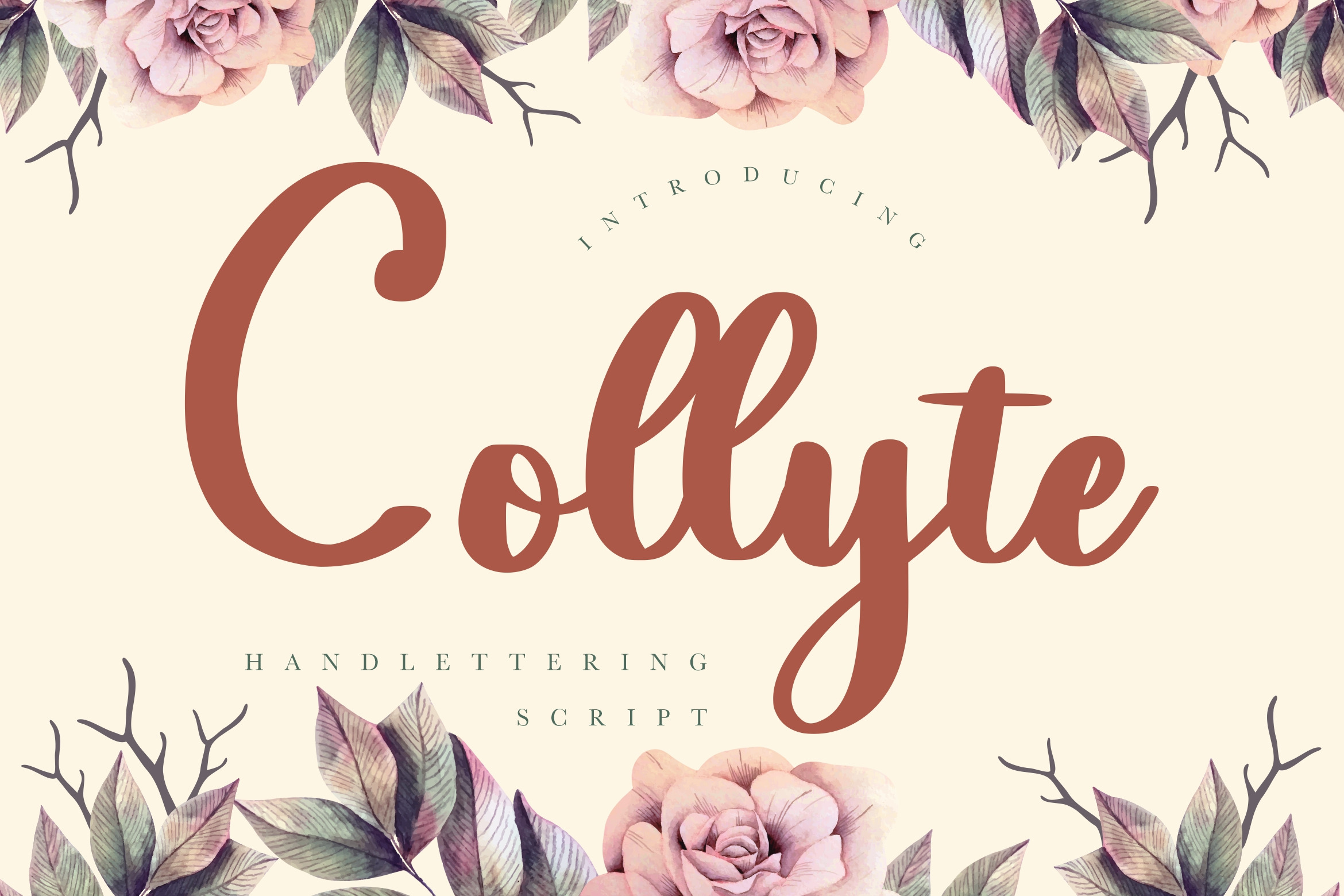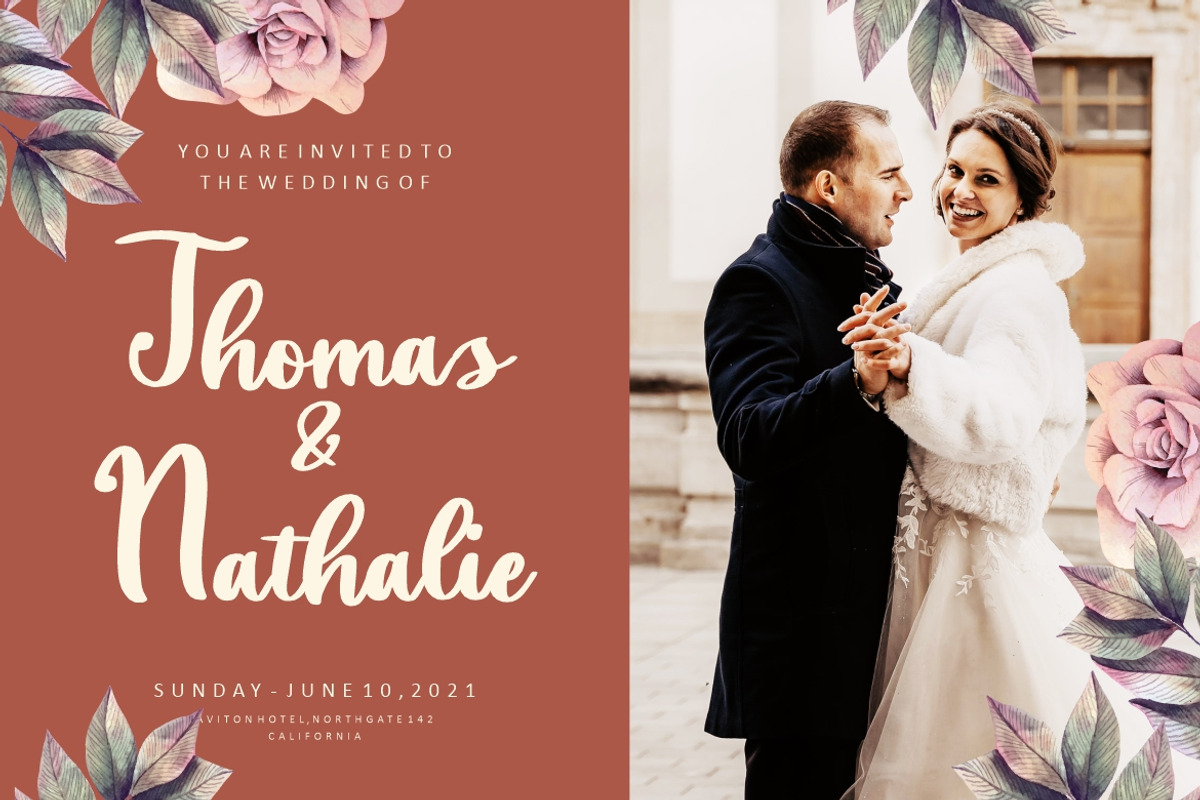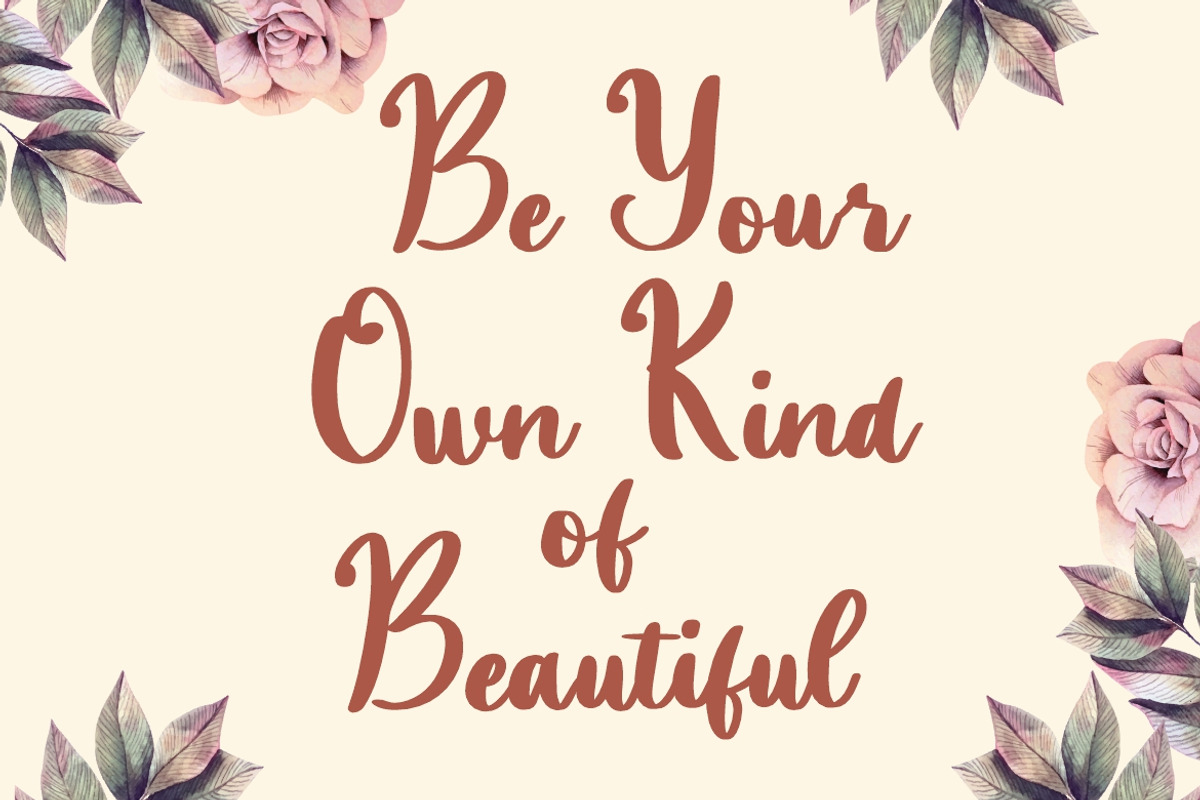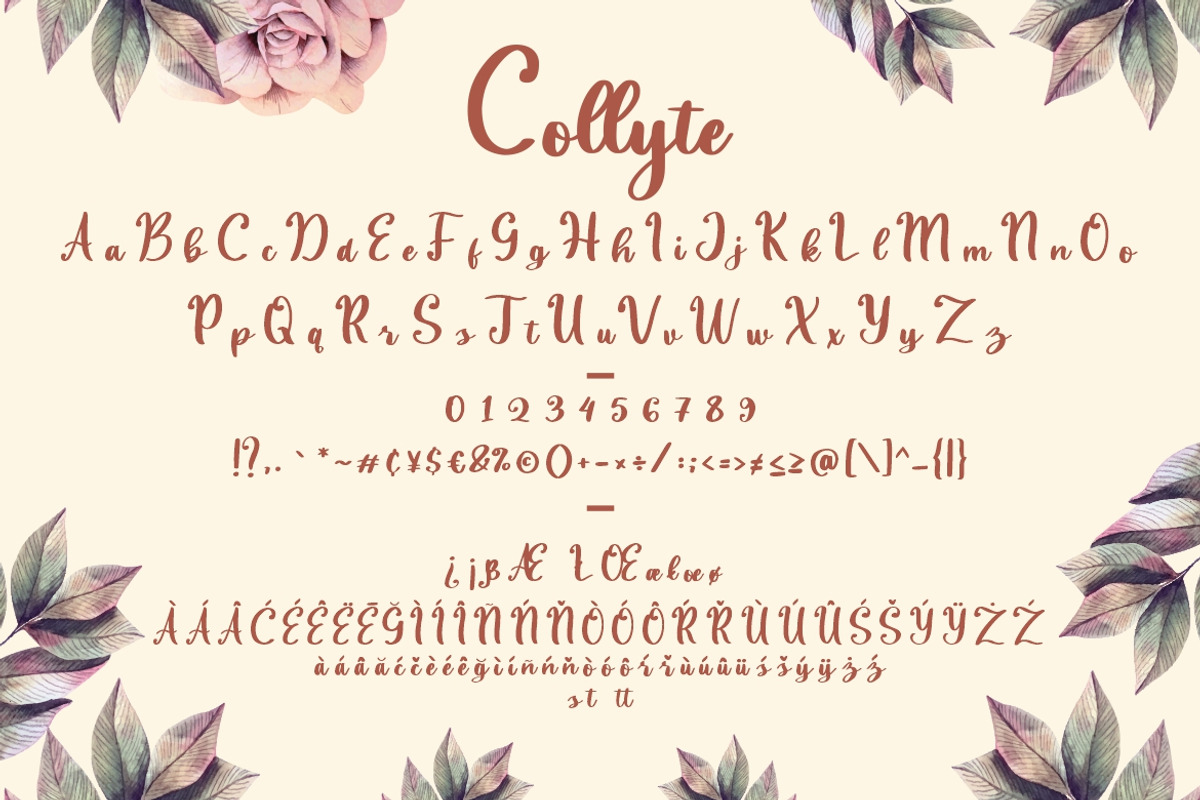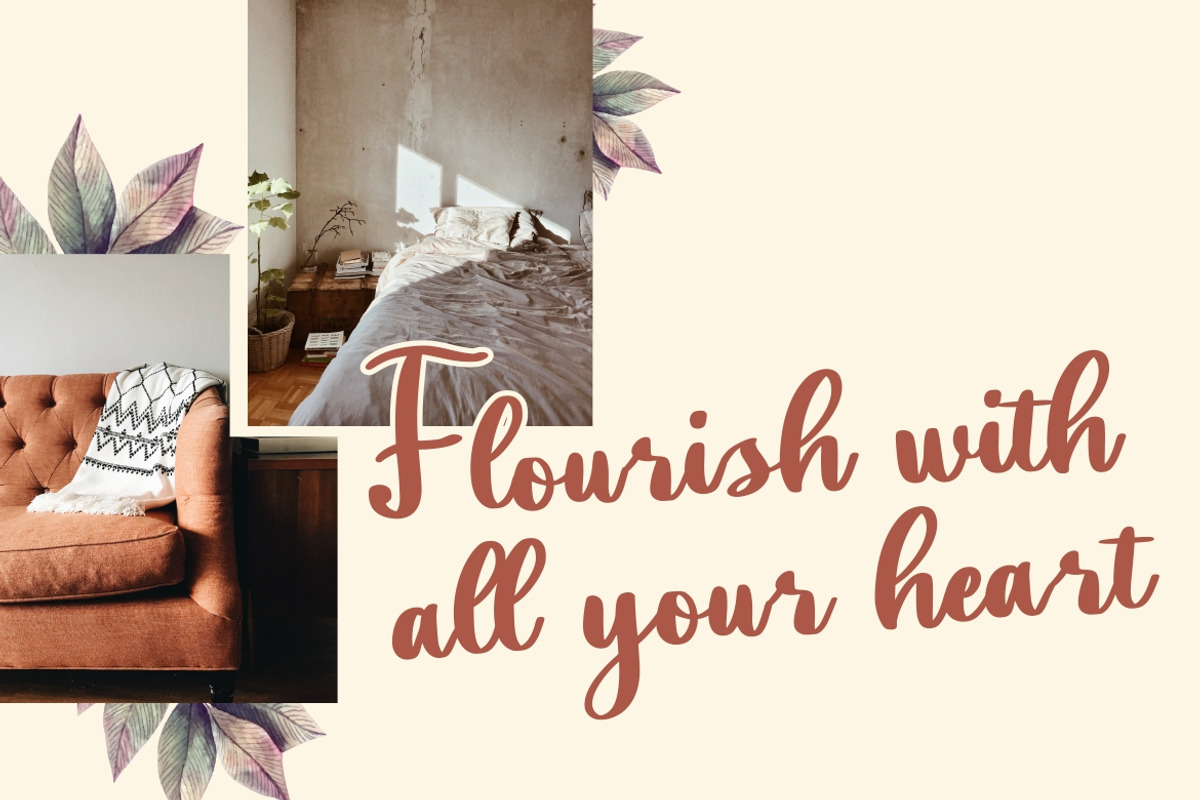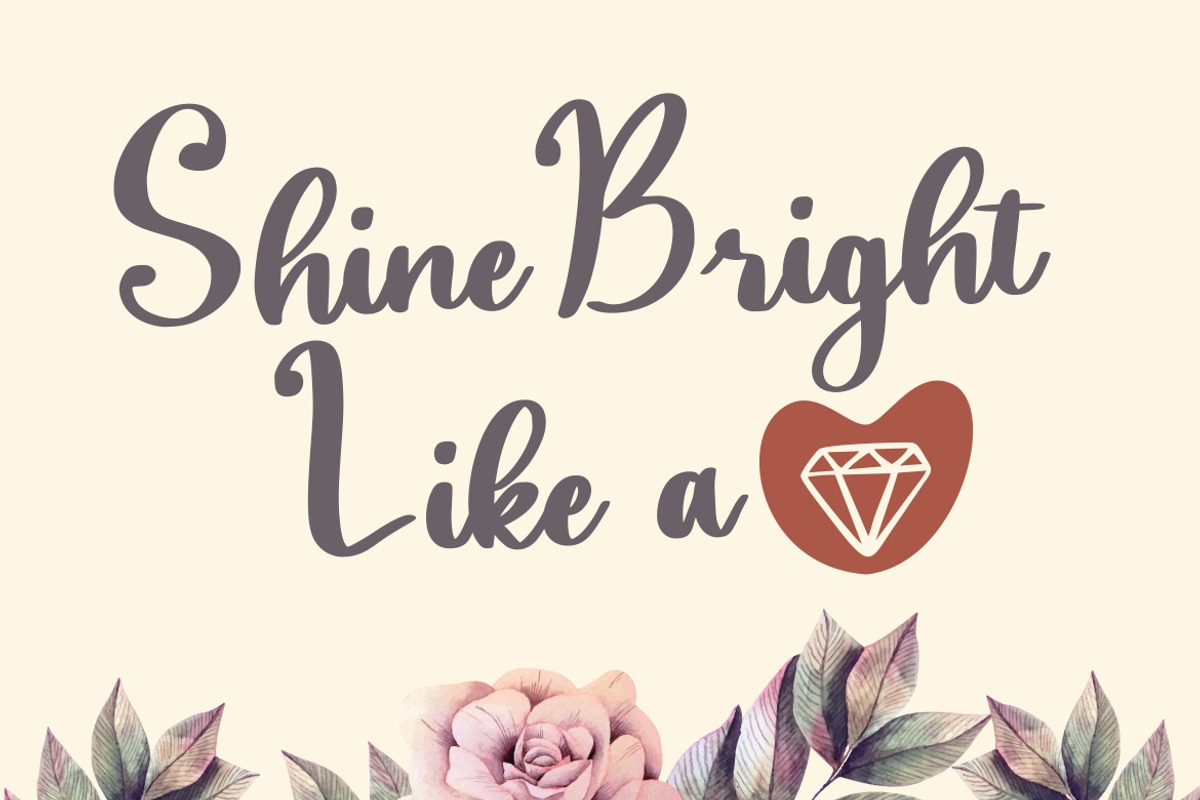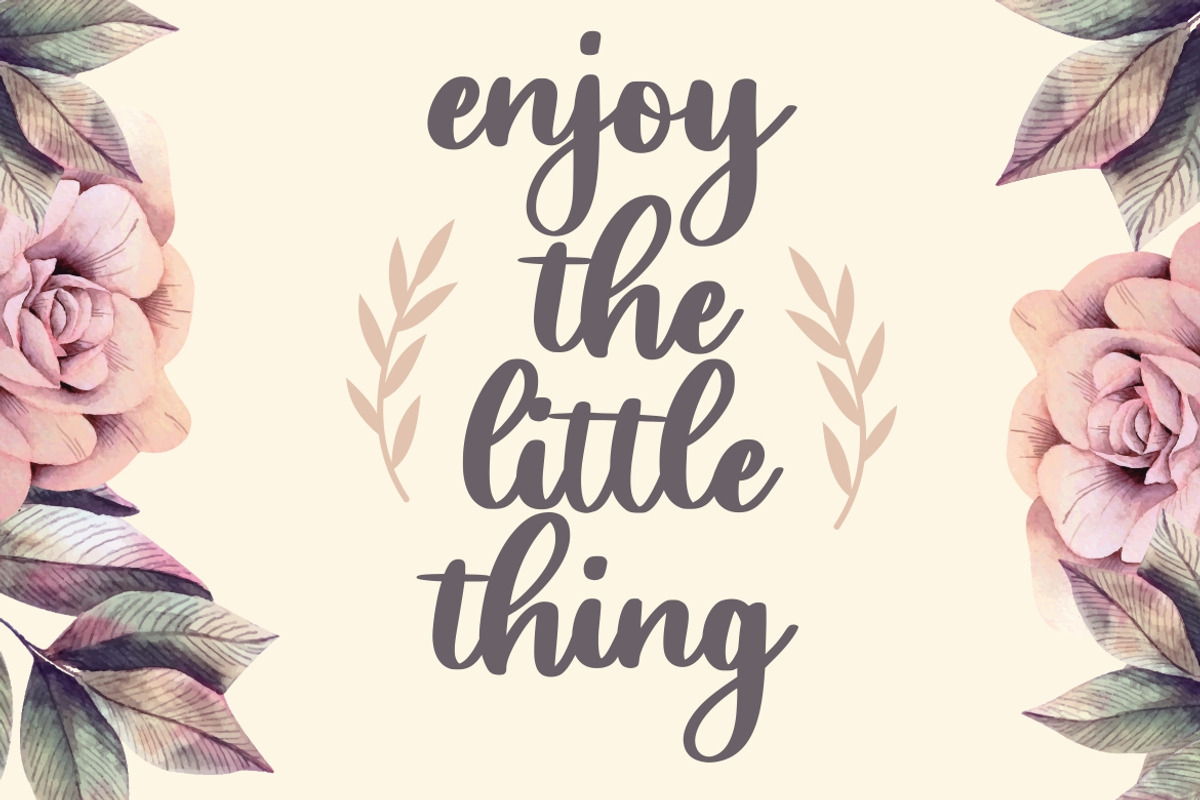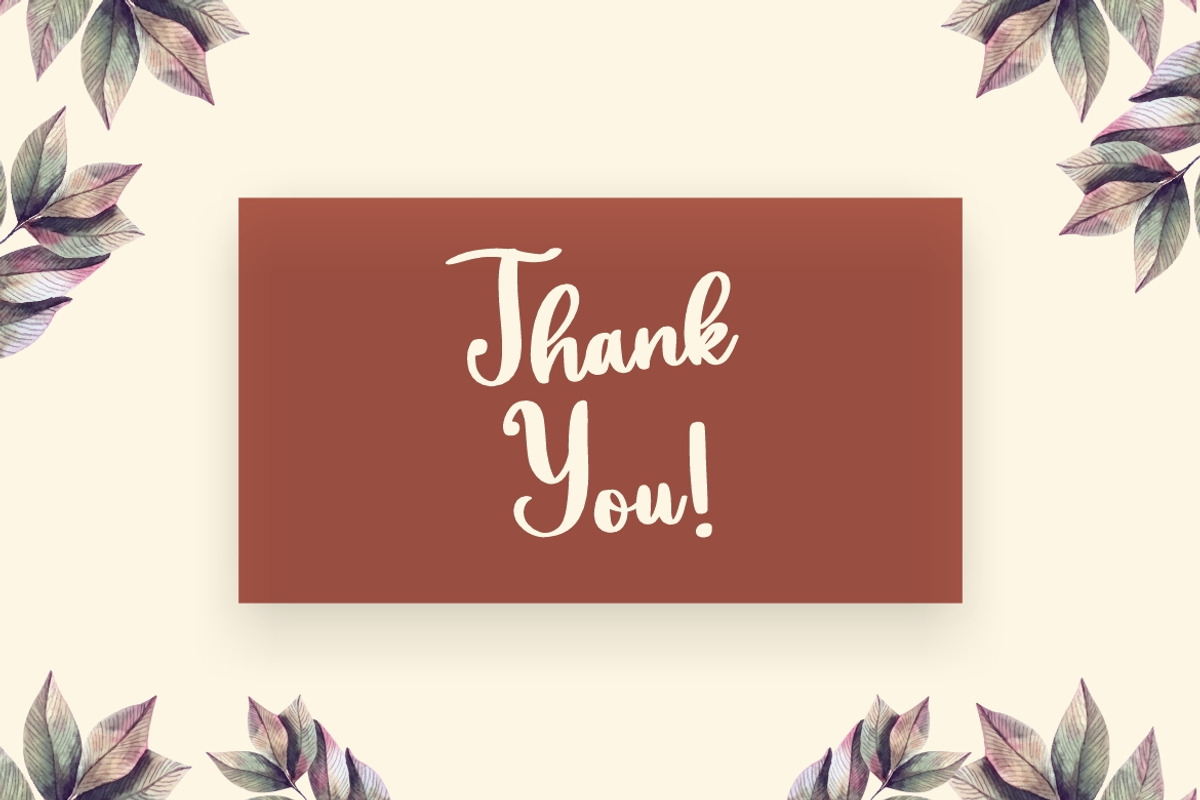
Collyte Handlettering Business Font
Introducing Collyte - an elegant and sophisticated handlettering font wtih bold natural flow. The font is perfect for for movie title, logo, blogging, brand identity, book title, social media, branding, wedding invites, cards or simply use it in your next design project and suitable to use for many occasion.
- Multilingual Characters support for; Afrikaans, Albanian, Czech, Danish, Dutch, English, Estonian, Finnish, French, German, Hungarian, Indonesia, Italian, Latvian, Lithuanian, Norwegian, Polish, Portugese, Slovak, Slovenian, Spanisch, Swedish.